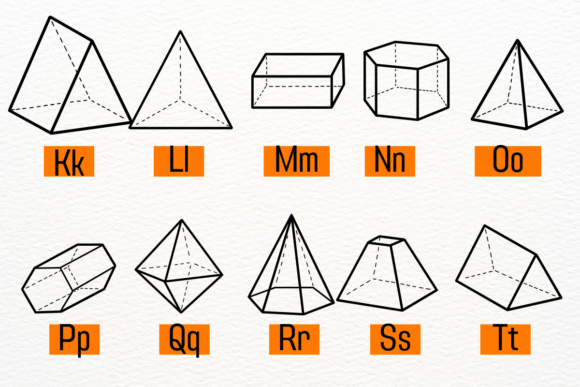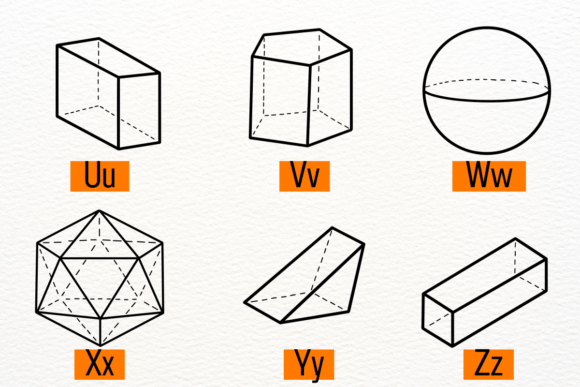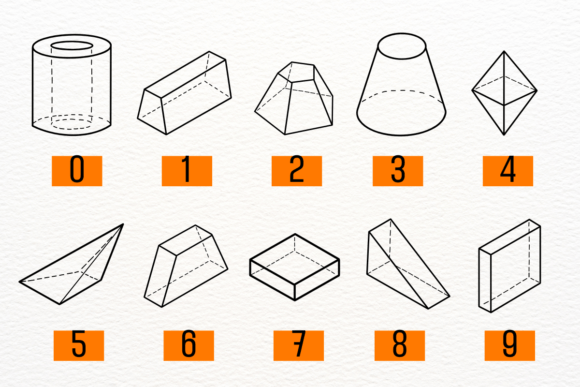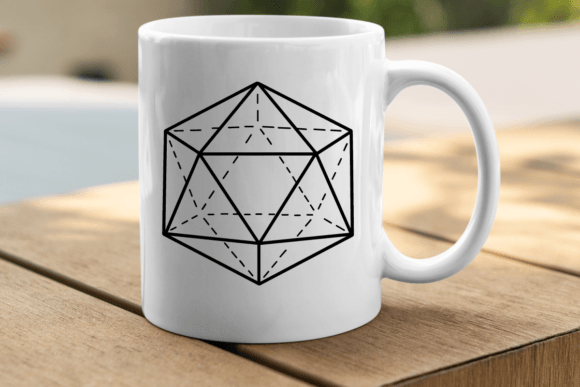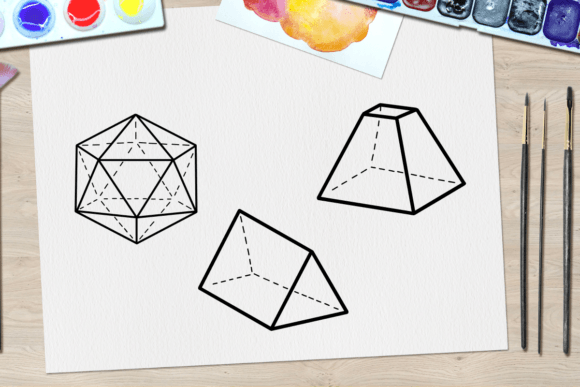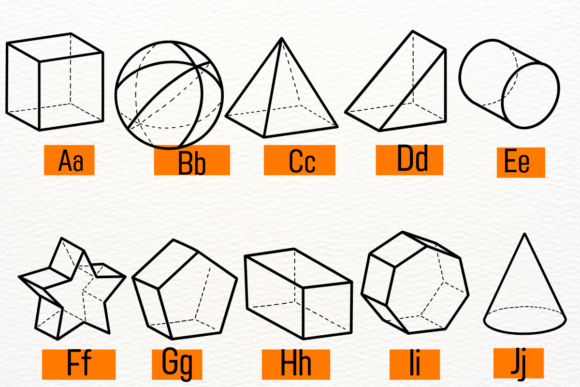
Introduction to Shape Geometry Font
Have you ever stared at a blank page, waiting for inspiration to strike? I know I have. It’s that moment when you’re working on a creative project, and you desperately need a spark to bring your idea to life. For designers like you and me, finding the perfect design element can be the difference between a mediocre project and a masterpiece. That’s where the Shape Geometry Font comes in – a game-changing resource that adds a touch of mathematical elegance to any design.
Imagine having access to a high-quality font that lets you create intricate patterns, logos, and digital artwork with ease. The Shape Geometry Font is a versatile and modern dingbat font that’s perfect for adding a unique geometric flair to your projects. With its vast array of shapes, including circles, triangles, and squares, you’ll never run out of creative possibilities.
Whether you’re working on a logo, pattern, or scrapbooking project, this font is a must-have design resource. Plus, with a transparent background and free download options, you can incorporate it seamlessly into your workflow. So, what are you waiting for? Discover the power of the Shape Geometry Font and take your designs to the next level!
Key Features of Shape Geometry Font
- High-quality design resource with intricate details, ideal for creative projects.
- Unique geometric shapes and patterns, offering endless possibilities for creative expression and design experimentation.
Honest Review: Shape Geometry Font
As a designer, I’m always on the lookout for high-quality design resources that can elevate my creative projects. The Shape Geometry Font is one such resource that caught my attention.
What works well is its versatility – it’s perfect for a variety of designs, from digital art to print materials. The font is available as a free download, which is a huge plus, and it has a transparent background, making it easy to use with different backgrounds.
- High-quality vector graphics
- Easy to customize
However, I did encounter some limitations ⚠️. The font is quite limited in terms of character set, which may not be ideal for longer texts. Additionally, the design may not be suitable for all audiences due to its geometric nature.
Overall, I think the Shape Geometry Font is a great design resource, especially for creative projects that require a unique and modern look. While it has its limitations, its versatility and high-quality design make it a valuable addition to any designer’s toolkit. ✨
Tips for Getting the Most Out of Shape Geometry Font
Shape Geometry Font is perfect for creating:
- Visually appealing graphics and infographics
- Engaging presentations and documents
- Unique and creative branding materials